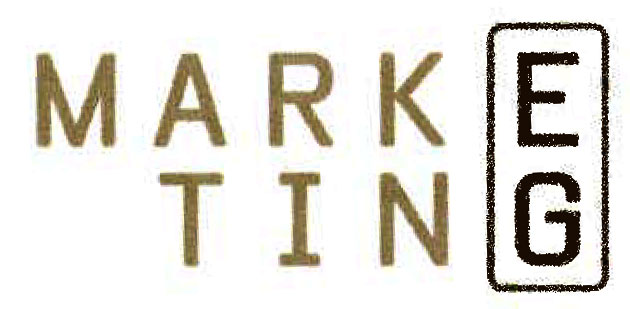
I’m looking for this font pls
Does anyone know this font pls?
The corner are slightly rounded. The G and M are special in this font.
Sorry, no close results were found.
Maybe you can use: Catarg Caps Regular font